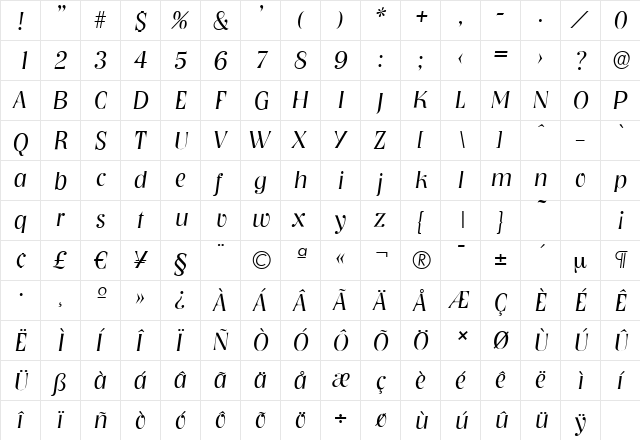
NashvilleSerial-Light Italic Font Preview
NashvilleSerial-Light Italic
NashvilleSerial-Light Italic Font Details
Design Context for NashvilleSerial-Light Typeface
NashvilleSerial-Light is a composed and adaptable typeface that performs quietly and consistently across a wide range of design contexts. Its italic angle brings a sense of urgency and motion to the letterforms. The delicate stroke weight brings airiness and refinement to layouts.